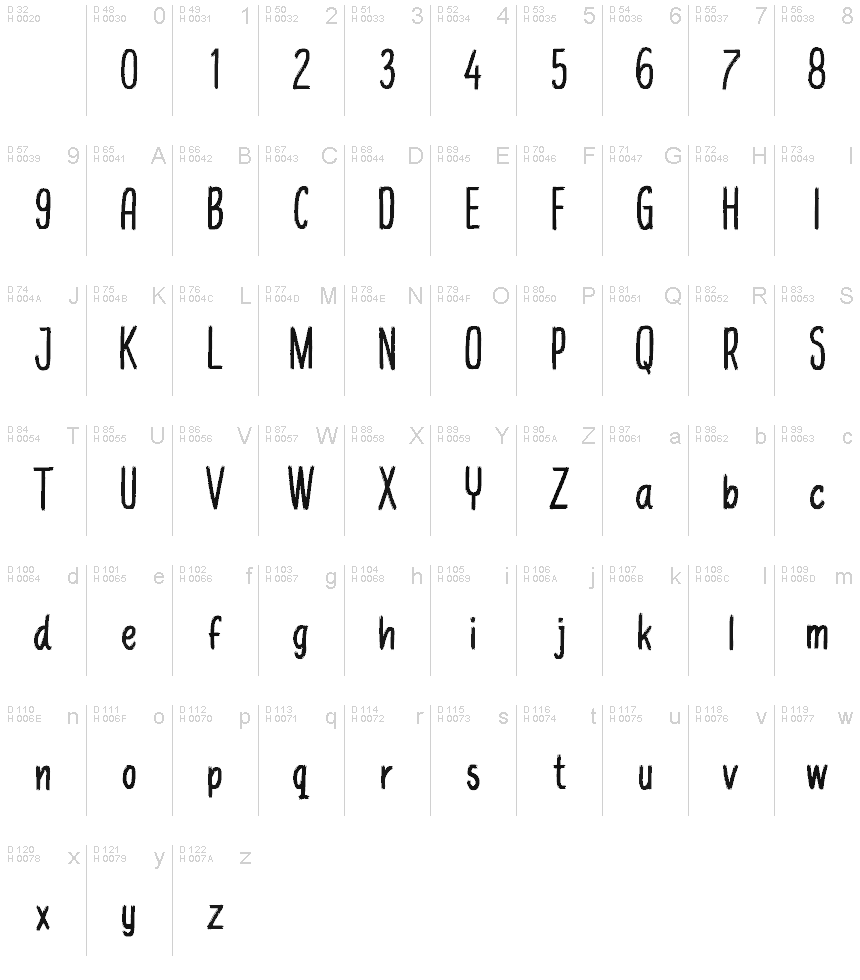
MICHAEL Jackpot
MICHAEL Jackpot is an expressive, brush-style font created by designer cove703. This condensed typeface exudes a sense of energy and dynamism, with its bold, confident strokes and organic, handwritten-like appearance. The font's distinctive character lends an air of playfulness and personality, making it an engaging choice for a variety of design projects.
MICHAEL Jackpot's versatility allows it to shine in diverse applications, from eye-catching headlines and titles to vibrant branding elements. Its condensed width and bold presence make it an excellent selection for creating impactful visual statements, whether in print, digital, or packaging designs. The font's unique flair and versatility make it a valuable addition to any designer's toolkit.